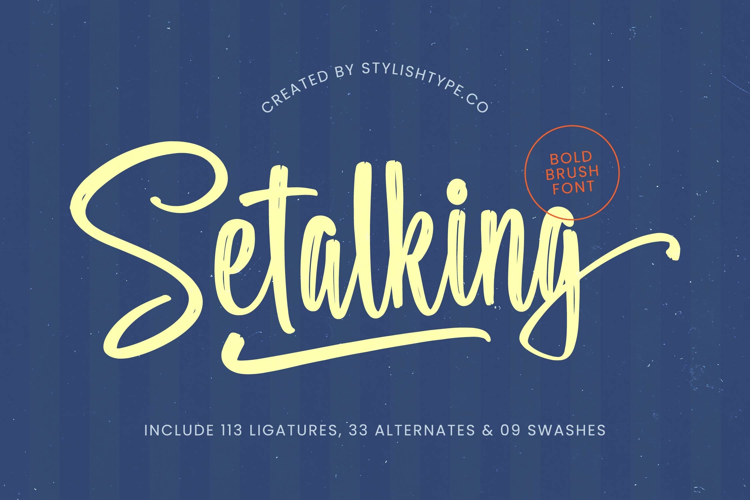
Setalking - Bold Brush Font
Setalking
Setalking Italic
Unleash the authentic energy of handcrafted typography with Setalking - Bold Brush Font. This dynamic script typeface commands attention, featuring thick, expressive strokes that perfectly capture the spontaneous, organic texture of real brush lettering. Its bold presence ensures instant readability while maintaining a highly personalized and artisan feel. It is the definitive choice for projects demanding both high visual impact and genuine character.